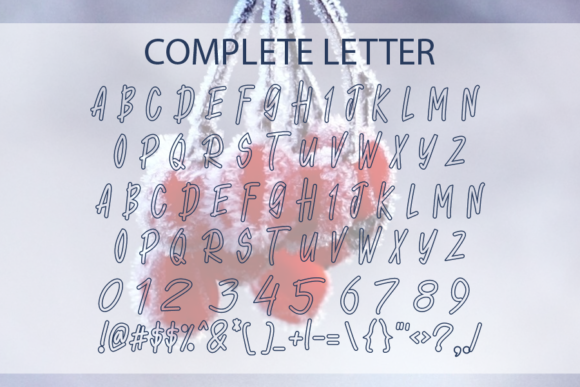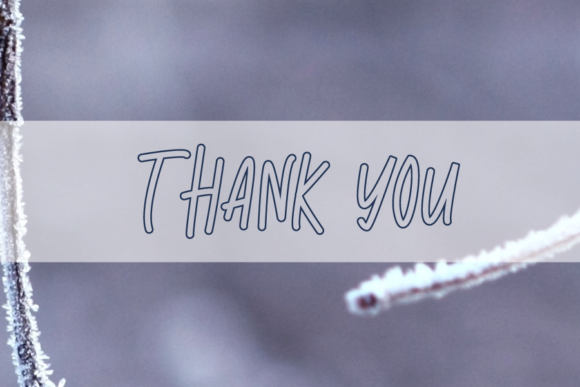
Introducing Freeze End Font: The Ultimate Display Font for Creative Projects
Are you a designer or crafter looking for a unique and versatile font to elevate your creative projects? Look no further than Freeze End Font, a simple, outlined, and bouncy display font that’s perfect for a wide range of applications. In this article, we’ll dive into the features and benefits of Freeze End Font, and explore how it can be used to add a touch of personality and style to your designs.
What is Freeze End Font?
Freeze End Font is a display font that’s designed to make a statement. Its simple, outlined, and bouncy design makes it perfect for use in a variety of creative projects, from logos and wedding invitations to headings, t-shirts, and more. The font’s unique design is sure to grab attention and add a touch of personality to your designs.
Key Features of Freeze End Font
So, what makes Freeze End Font so special? Here are just a few of its key features:
- Simple and Outlined Design: Freeze End Font features a simple and outlined design that’s perfect for creating bold and eye-catching text.
- Bouncy and Playful Feel: The font’s bouncy and playful feel makes it perfect for use in creative projects that require a touch of personality and whimsy.
- Highly Versatile: Freeze End Font can be used for a wide range of applications, from logos and wedding invitations to headings, t-shirts, and more.
- Easily Readable: Despite its bold and outlined design, Freeze End Font is still easily readable, making it perfect for use in both print and digital applications.
Uses for Freeze End Font
So, what can you use Freeze End Font for? The possibilities are endless! Here are just a few ideas to get you started:
- Logos: Use Freeze End Font to create a bold and eye-catching logo for your business or brand.
- Wedding Invitations: Add a touch of personality and whimsy to your wedding invitations with Freeze End Font.
- Headings: Use Freeze End Font to create bold and eye-catching headings for your website, blog, or marketing materials.
- T-Shirts: Create custom t-shirts with Freeze End Font for a unique and eye-catching design.
- Letterhead: Use Freeze End Font to create a bold and professional letterhead for your business or brand.
- Signage: Use Freeze End Font to create eye-catching signage for your business or event.
- Labels: Create custom labels with Freeze End Font for a unique and eye-catching design.
- News: Use Freeze End Font to create bold and eye-catching headlines for your news articles or blog posts.
- Posters: Create eye-catching posters with Freeze End Font for a unique and bold design.
- Badges: Use Freeze End Font to create custom badges for your business or event.
Why Choose Freeze End Font?
So, why should you choose Freeze End Font for your creative projects? Here are just a few reasons:
- Unique Design: Freeze End Font features a unique and eye-catching design that’s sure to grab attention.
- Highly Versatile: The font can be used for a wide range of applications, making it a great addition to any designer’s toolkit.
- Easily Readable: Despite its bold and outlined design, Freeze End Font is still easily readable, making it perfect for use in both print and digital applications.
In conclusion, Freeze End Font is a simple, outlined, and bouncy display font that’s perfect for a wide range of creative projects. Its unique design, highly versatile, and easily readable make it a great addition to any designer’s toolkit. Whether you’re a designer or crafter, Freeze End Font is a great choice for adding a touch of personality and style to your designs. So why wait? Download Freeze End Font today and start creating!